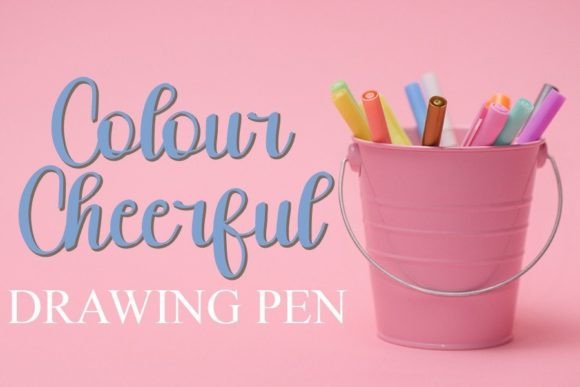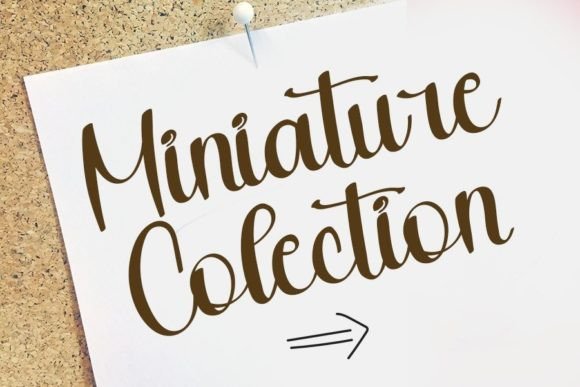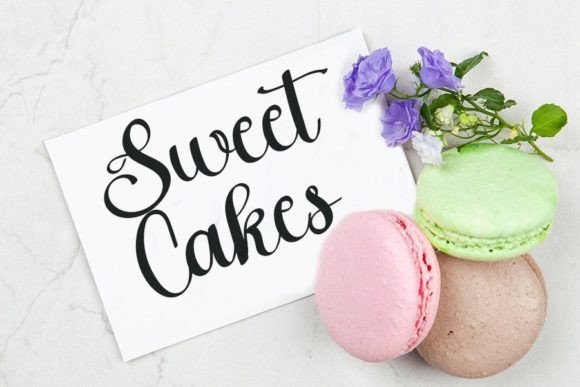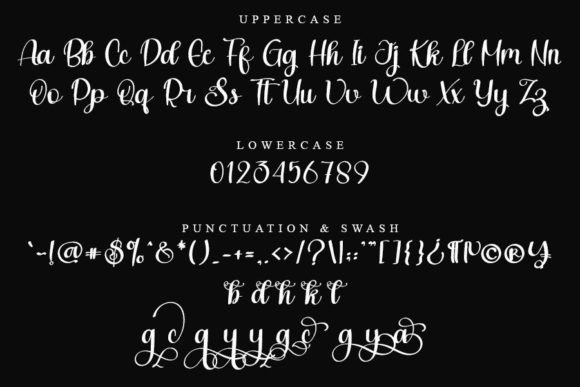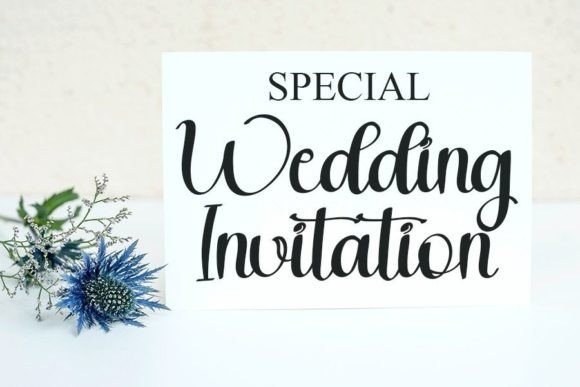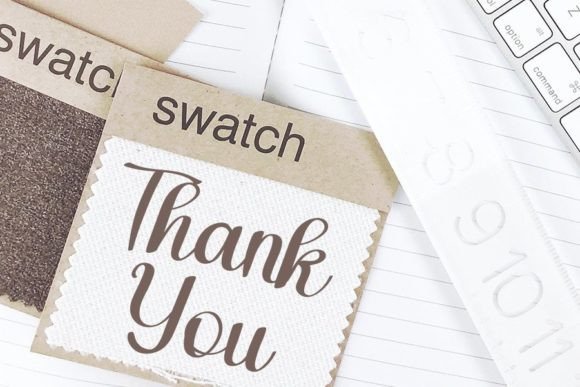
Introduction to Magic Font
Magic is a beautiful and refined handwritten font.
Classy and modern, it is perfect for logos, branding, invitations, stationery, wedding designs, social media posts, and much more This font is PUA encoded, which means you can access all of the amazing glyphs and ligatures with ease.
Key Features of Magic Font